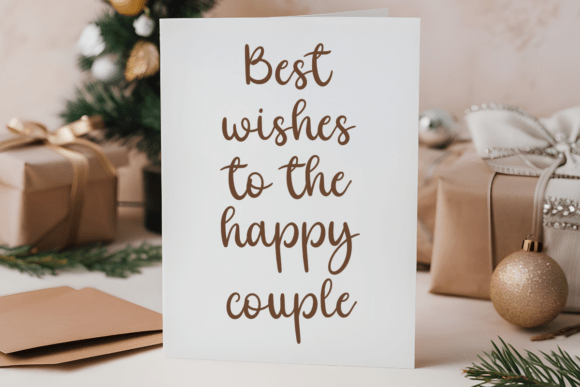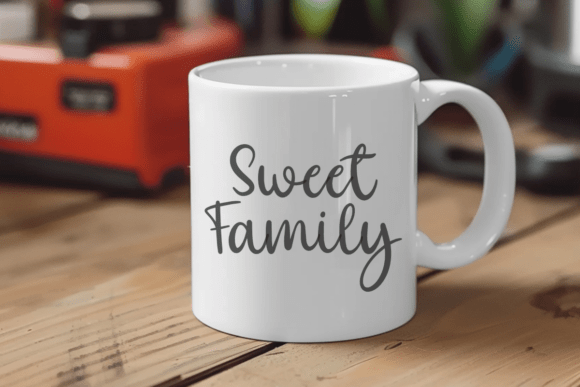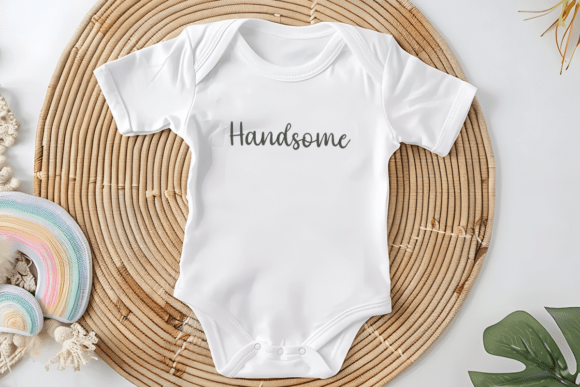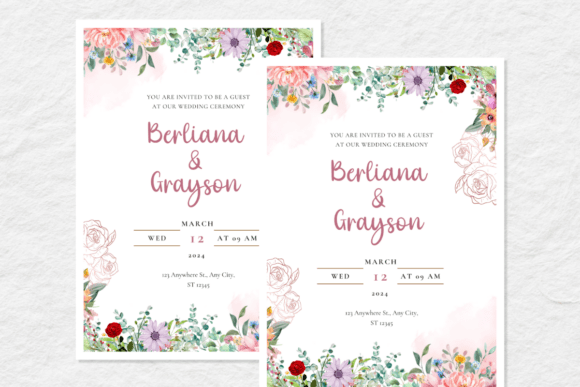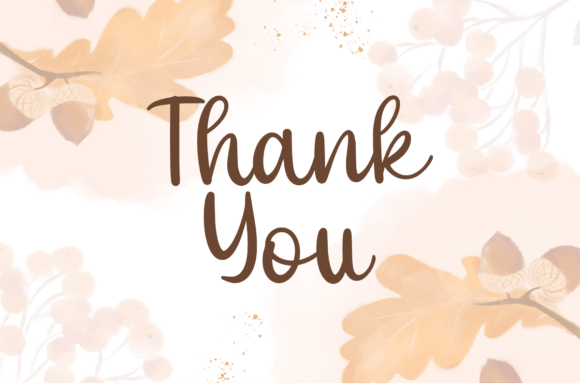
Unleash the Cozy Charm of Berry Font
Have you ever stumbled upon a font that instantly makes you feel like you’re sitting in your favorite coffee shop on a lazy Sunday morning? For many designers, this is the moment when the perfect font comes along and sparks a wave of creativity. For us, that font is Berry.
Berry Font is a delightful, handwritten font that brings a friendly, down-to-earth feel to any design. Its bold strokes and natural flow make it perfect for lifestyle branding, packaging, social media posts, and heartfelt quotes. Whether you’re designing for a small business or crafting DIY-style projects, Berry adds a warm, approachable vibe with a touch of charm.
As a designer, having the right font at your fingertips can be a game-changer. Berry Font is a valuable addition to any design arsenal, offering a unique and timeless look that’s sure to leave a lasting impression.
• Unique Characteristics: Berry Font features a unique blend of modern and vintage design elements, with subtle texture and organic shapes that give it a distinctive look and feel.
Berry Font Review
Overall, I’d say Berry Font is a solid choice for a font. It’s modern and versatile, and can be used for a variety of projects.
• Modern aesthetic: Berry Font has a clean and sleek design that’s perfect for contemporary projects.
• Legibility: The font is highly legible, making it easy to read even at small font sizes.
• Good for titles and headings: The font’s bold and eye-catching style makes it ideal for titles and headings.
• Limited language support: Berry Font may not have the same level of language support as some other fonts.
• No bold or italic variations: While the font has a bold style, it’s not as versatile as some other fonts that offer bold and italic variations.
• May not be suitable for long blocks of text: Due to its modern and condensed design, Berry Font may not be the best choice for long blocks of text.
In conclusion, Berry Font is a great choice for projects where you need a modern and eye-catching font. However, it may not be the best choice for projects that require a lot of language support or long blocks of text.
Tips: Use Berry Font for headings and titles to add a touch of whimsy to your designs. Experiment with different font sizes and colors to create a unique look.
Tips: Use Berry Font for illustrations and graphics to add a playful touch. Experiment with different font styles and sizes to create a cohesive look.
Tips: Use Berry Font for headings and titles to add a touch of personality to your presentations and documents. Experiment with different font sizes and colors to create a unique look.
Berry Font is perfect for:
• Children’s books and educational materials
• Food and beverage branding
• Playful advertisements and marketing materials